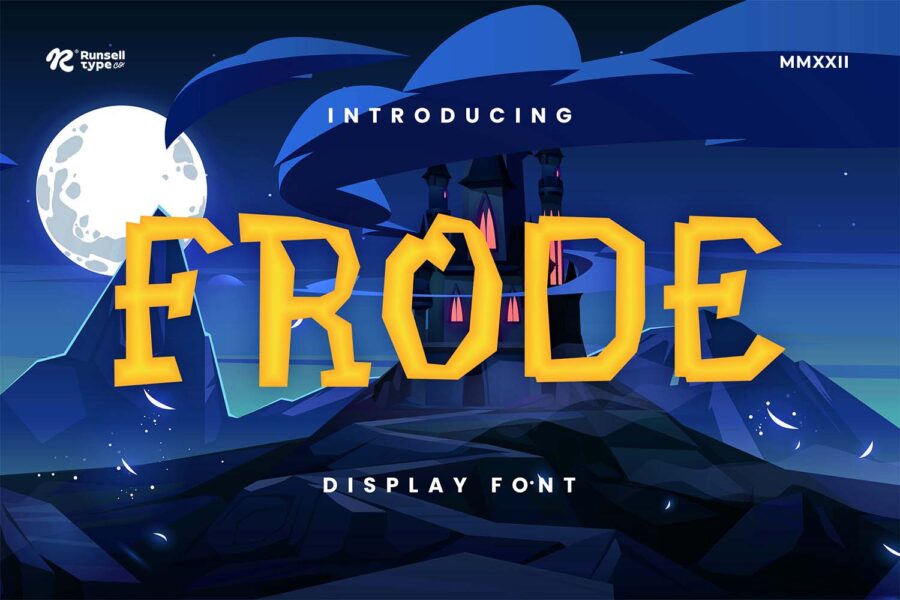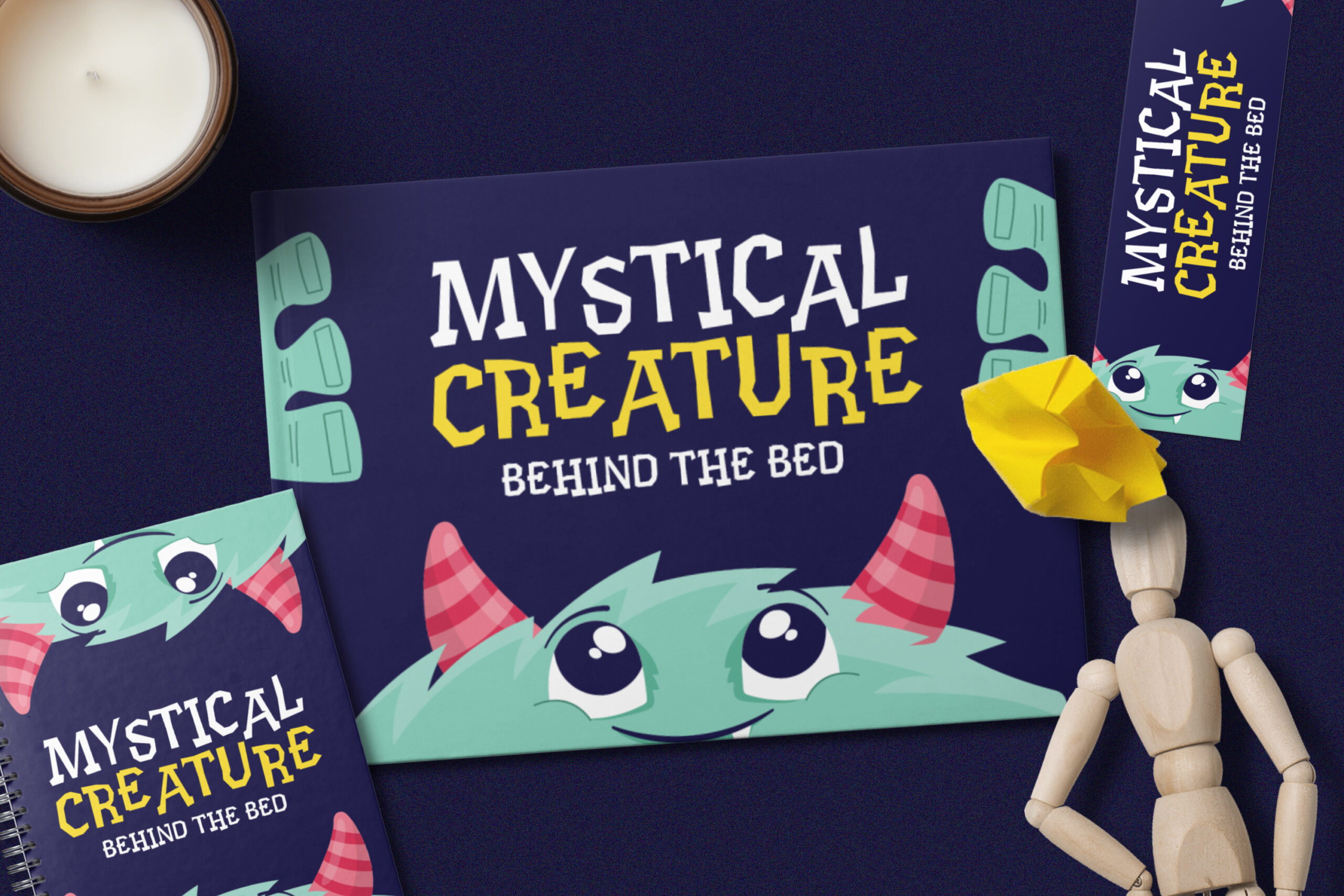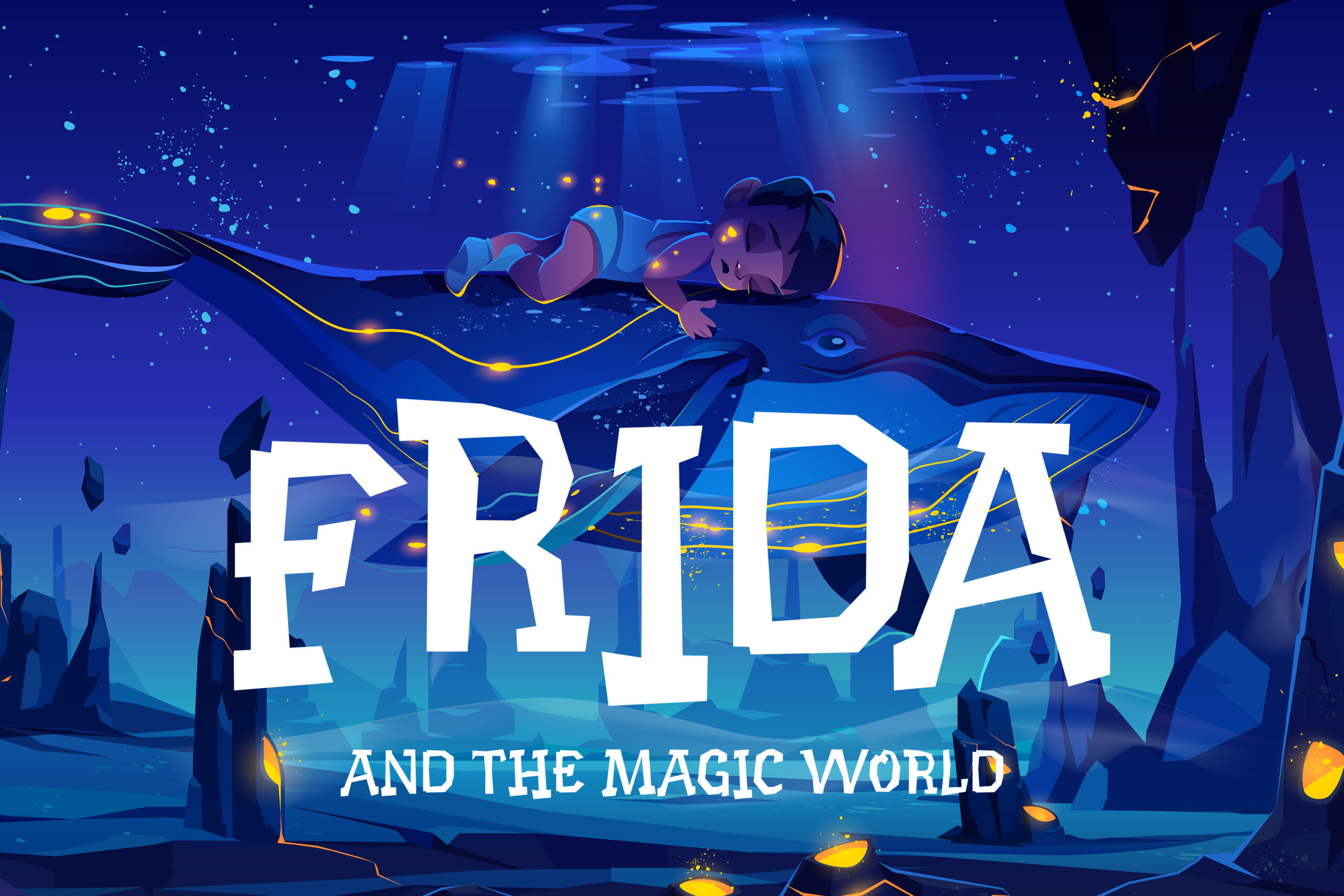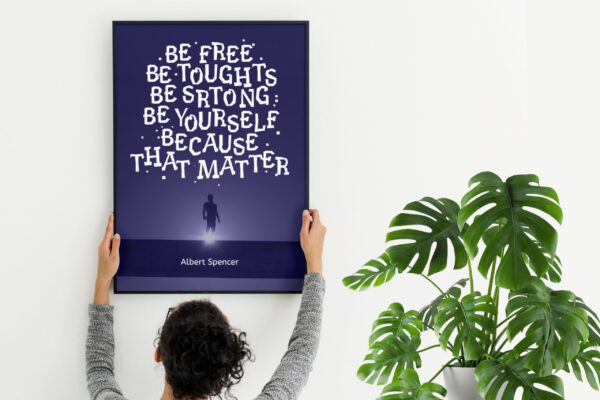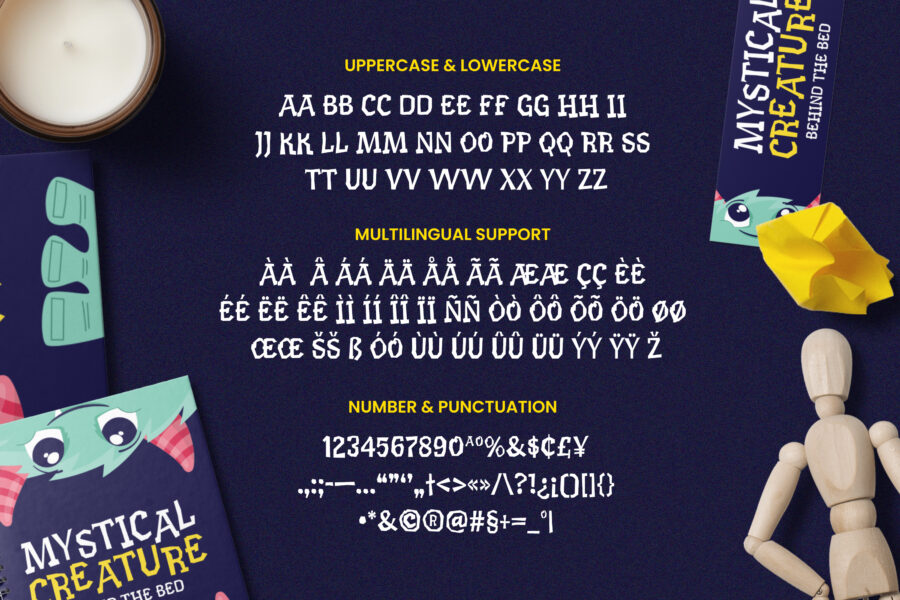
Frode is a bold and jagged display font with a distinctive medieval flair, designed to evoke fantasy, folklore, and mysticism. Its sharp angular forms and uneven structure make it ideal for capturing attention in storytelling visuals, book covers, posters, and children’s fantasy themes. With strong Nordic influences and playful yet intimidating shapes, Frode is perfect for projects that blend whimsy with epic adventure.
Packed with multilingual support and extensive punctuation, Frode is more than just style—it’s functionally versatile too. Whether you’re designing a mystical creature-themed children’s book or a magical realm video game title, this typeface stands out with its enchanting personality and unique visual punch.